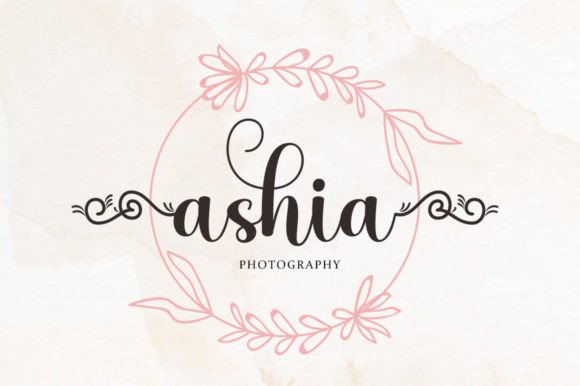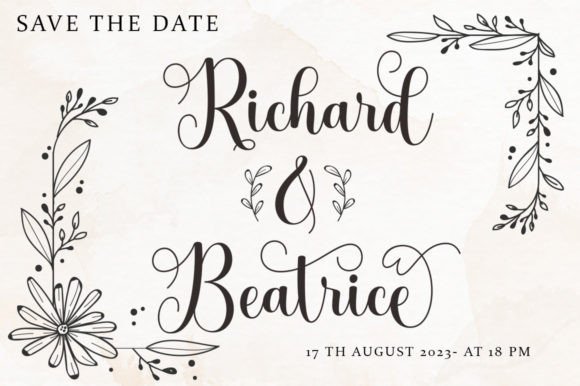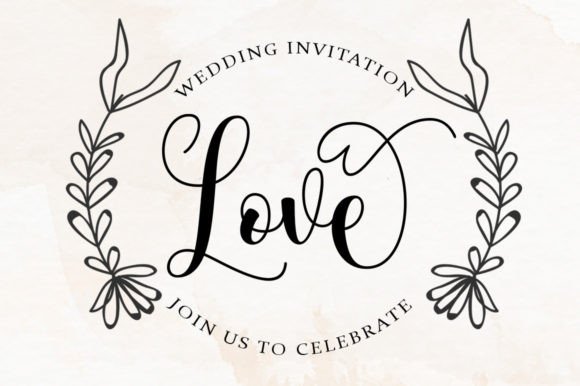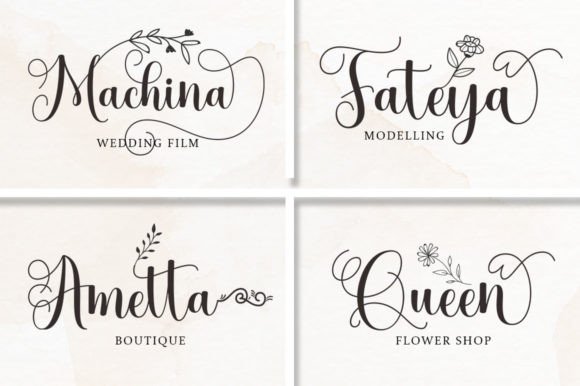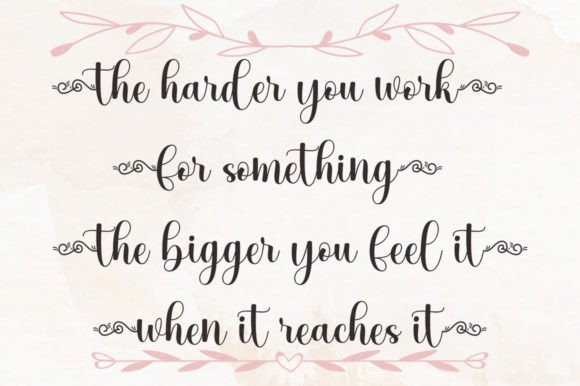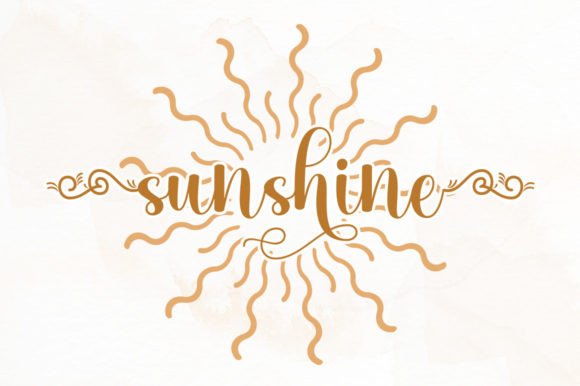
Introducing Anteria Script Font: The Epitome of Romance and Elegance
In the world of typography, few fonts capture the essence of romance and elegance as beautifully as Anteria Script Font. This exquisite font is designed to convey a sense of sophistication and charm, making it the perfect choice for designers and crafters looking to add a touch of luxury to their projects. With its delicate strokes, graceful curves, and seamless flow, Anteria Script Font is sure to leave a lasting impression.
The Beauty of Anteria Script Font
Anteria Script Font is a masterclass in typographic design. Its letters are carefully crafted to flow seamlessly into one another, creating a sense of continuity and fluidity that is both visually appealing and easy to read. The font’s fine details and subtle embellishments exude sophistication and charm, making it perfect for use in romantic occasions such as wedding invitations, Valentine’s Day cards, and anniversary messages.
One of the standout features of Anteria Script Font is its PUA (Private Use Area) encoding. This means that designers and crafters can access all the font’s delightful glyphs and swashes effortlessly, without having to navigate complex character maps or coding. With PUA encoding, you can simply click and insert the characters you need, making the design process faster and more efficient.
Anteria Script Font is a versatile font that is perfect for a wide range of design applications. Whether you’re creating wedding stationery, romantic greeting cards, or elegant branding materials, this font is sure to impress. Its elegant curves and sophisticated charm make it an excellent choice for designers and crafters looking to add a touch of luxury to their projects.
Key Features of Anteria Script Font
- Delicate strokes and graceful curves for a romantic and elegant look
- Seamless flow between letters for improved readability
- PUA encoded for effortless access to glyphs and swashes
- Perfect for wedding invitations, Valentine’s Day cards, anniversary messages, and more
- Versatile and suitable for a wide range of design applications
Tips for Using Anteria Script Font
Anteria Script Font is a stunning addition to any designer’s or crafter’s toolkit. With its delicate strokes, graceful curves, and seamless flow, this font embodies the essence of romance and elegance. Its PUA encoding makes it easy to use and accessible, while its versatility makes it suitable for a wide range of design applications. Whether you’re creating wedding stationery, romantic greeting cards, or elegant branding materials, Anteria Script Font is sure to impress.